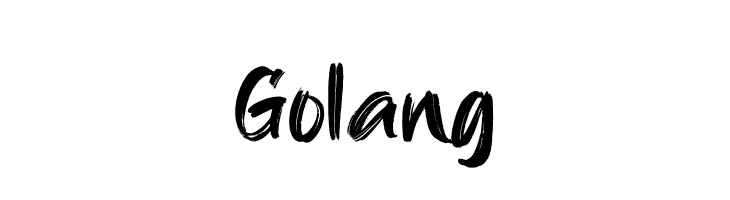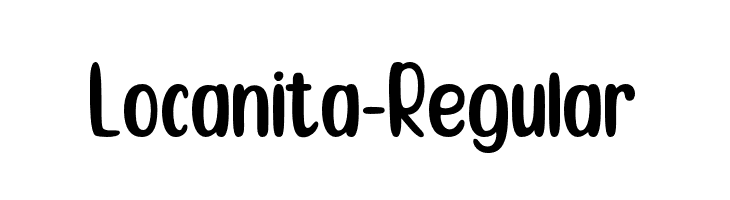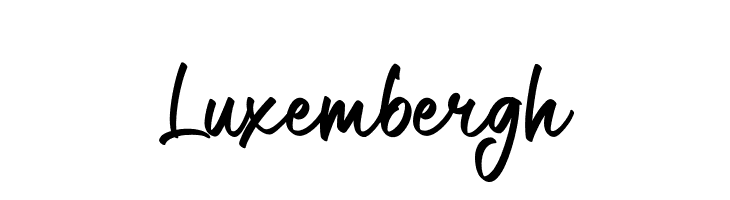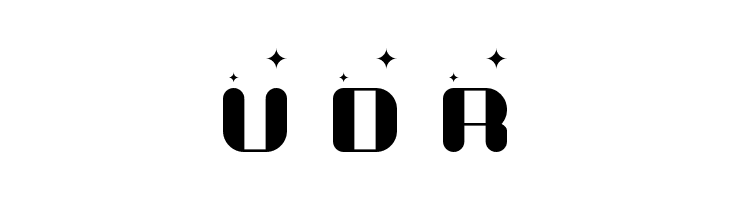
A bold, brush-style font with a hand-painted, dynamic appearance.
A bold, playful font with star-like cutouts and dynamic shapes.
A bold, dramatic blackletter font with intricate detailing.
A playful, handwritten font with smooth, rounded edges and a casual style.
A whimsical and playful font with decorative curls and swirls.
A modern, geometric font with tall, narrow characters and uniform stroke width.
A futuristic, striped font with geometric shapes and medium contrast.
A playful, rounded font with bold, smooth curves and consistent stroke width.
A lively and expressive script font with flowing, cursive letterforms and medium contrast.